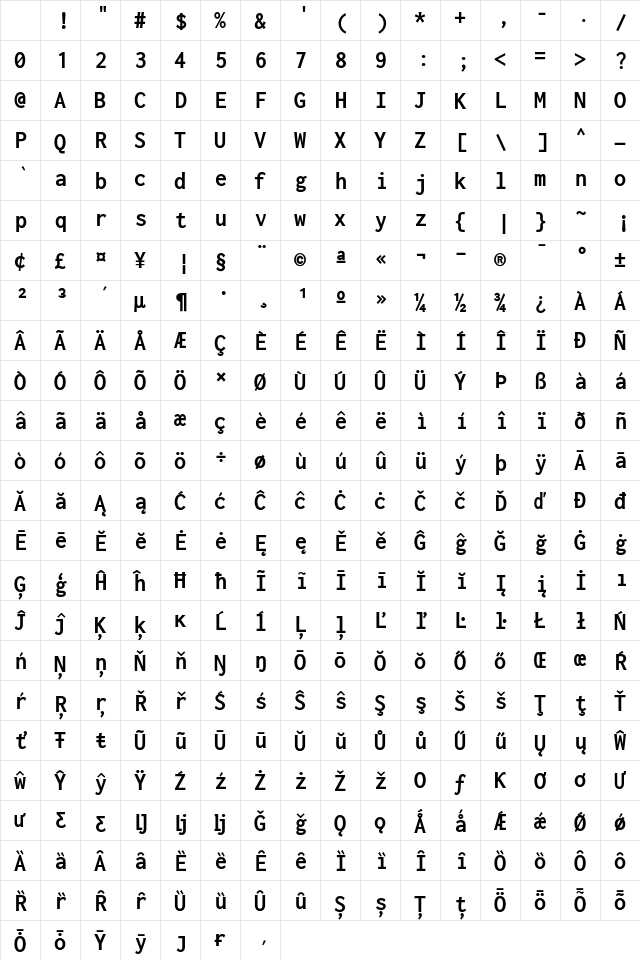
Complete Inconsolata NF Bold glyph index. Displaying only characters natively supported by Inconsolata NF Bold font.
Inconsolata NF is a composed and adaptable typeface that performs quietly and consistently across a wide range of design contexts. Its bold stroke weight gives it real presence on the page.